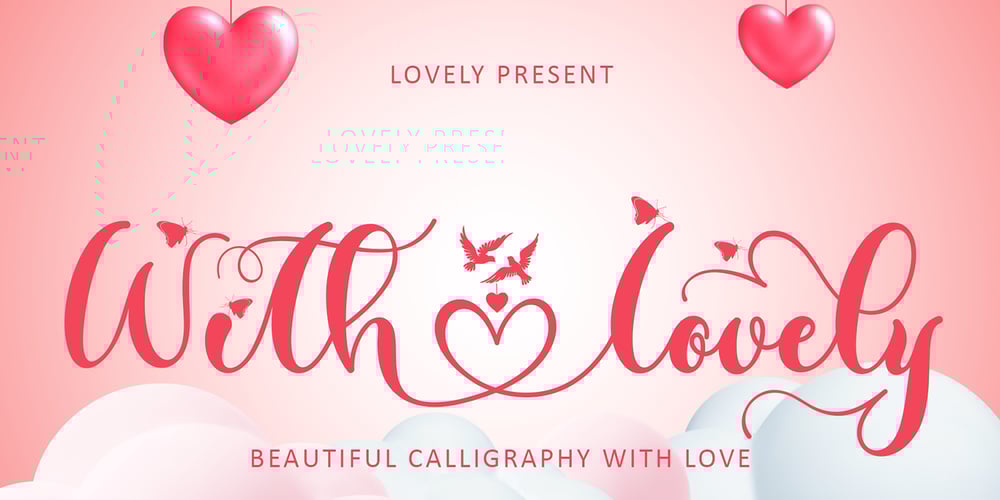
With Lovely Font Family was designed by Isroni Yoga Prasetya and published by Yoga Letter. With Lovely contains 1 styles and family package options. “With Lovely” is a very pretty handwritten font. This font has beautiful decorations in the form of love, birds, and butterflies. This font features uppercase, lowercase, alternative, swashes, titling, binders, numbers, punctuation, and multilingual support as well. The font decoration is very easy to apply, and there are also instructions for use in the preview. Great for weddings, Valentine’s Day, invitations, stickers, birthdays, Christmas, winter, Easter, and so on.